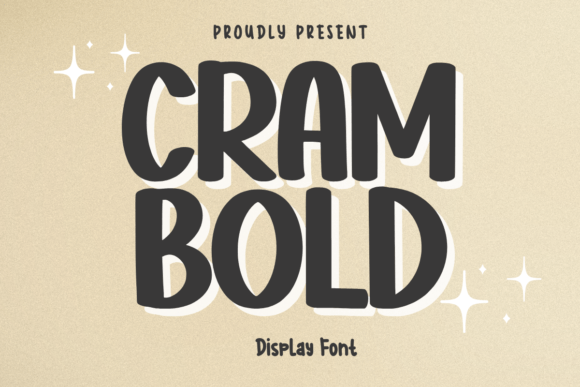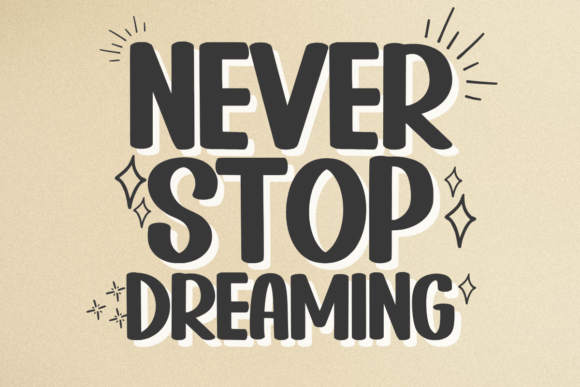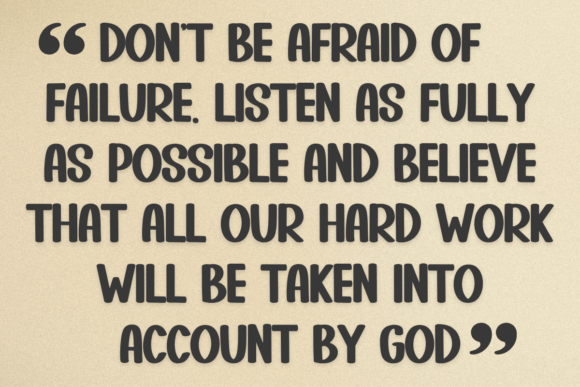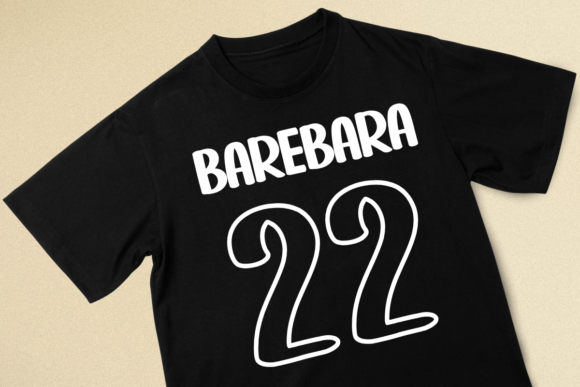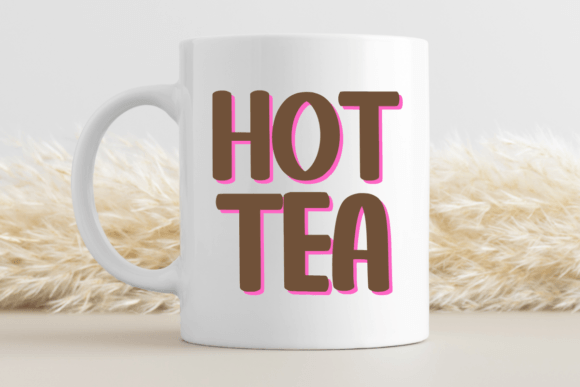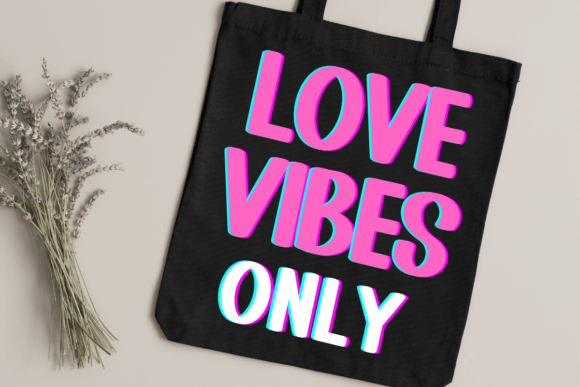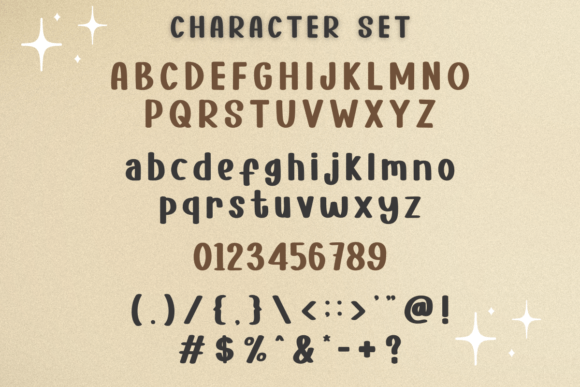
Unlock the Power of Modern Typography with Cram Bold Font
Have you ever stared at a blank page, trying to come up with the perfect headline for your latest project? The words just aren’t flowing, and the cursor on your screen seems to be taunting you. That’s where a great font comes in – to elevate your design, add some sophistication, and make your message shine.
Enter Cram Bold Font, a sleek and modern typeface designed to make a statement. With its bold, minimalist shapes and elegant touch, this font is perfect for a wide range of creative needs, from printing and book titles to photography and branding. Whether you’re a seasoned designer or just starting out, Cram Bold Font is an invaluable addition to your toolkit.
Cram Bold Font Key Features
- Font Family: Cram Bold is a sans-serif font family designed for readability and legibility.
- Unique Characteristics: Cram Bold features a distinctive bold and condensed design, making it ideal for headlines, titles, and other large-scale typography.
- Character Set: Supports a wide range of languages, including Latin, Cyrillic, and Greek scripts, making it a versatile font for global applications.
Cram Bold Font Review
Overall, I think Cram Bold Font is a solid addition to any design project. ✨ It’s a versatile font that works well in a variety of contexts, from headings to body text. The bold weight gives it a sense of authority and can help draw attention to important information.
Here are some of the things that really work well:
- ✨ High legibility: Cram Bold Font is easy to read, even at smaller font sizes.
- ✨ Wide character set: The font includes a wide range of characters, including international characters and punctuation.
- ✨ Stylish: The font has a unique, modern feel that can add some visual interest to a design.
- ⚠️ Limited font weights: While the bold weight is great, there aren’t many other weights available.
- ⚠️ Not ideal for small text: While the font is legible at larger sizes, it can start to look a bit fuzzy at smaller sizes.
Overall, I think Cram Bold Font is a good choice for projects where you need a bold, eye-catching font. Just be aware of its limitations and use it in contexts where it will shine.
For best results, use Cram Bold Font for headings and titles to create a bold and eye-catching design.
Use Cram Bold Font to create striking headlines and titles that grab attention.
Use Cram Bold Font to create a professional and polished look in your presentations and documents.
Some common use cases for Cram Bold Font include:
- Call-to-actions
- Brand logos and icons
Remember to use Cram Bold Font sparingly to avoid overwhelming your design. Balance it with other fonts and design elements for maximum impact.